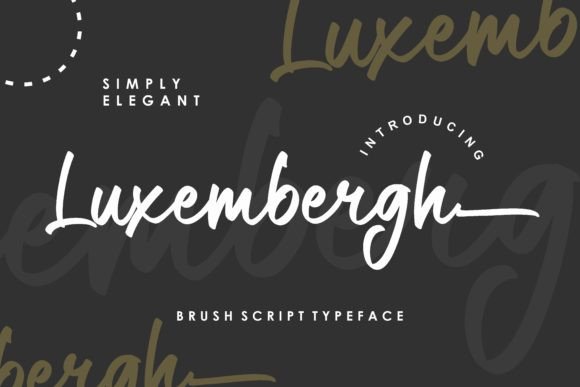
Indulge in a world of elegance and style with Luxembergh Font, the epitome of sophistication. A script font that dances across your screen, Luxembergh Brush Signature is the perfect muse for all your creative endeavors. With its enchanting swashes and smooth curves, this font will add a touch of allure to any project.
Unleash your inner artist and explore the endless possibilities Luxembergh Font has to offer. Create eye-catching logos that exude professionalism and creativity. Design wedding invitations that capture the essence of romance and love. Make your social media posts stand out from the crowd with Luxembergh's unique charm.
Elevate your branding efforts with Luxembergh Font. Its versatility extends to product packaging, product designs, labels, photography, watermarks, and much more. No matter the project, Luxembergh adds a touch of refinement and polish.
If you crave a font that speaks to your creative soul, Luxembergh Brush Signature is the answer. Its handwritten style evokes a sense of authenticity and connection, drawing your audience in and captivating their attention.